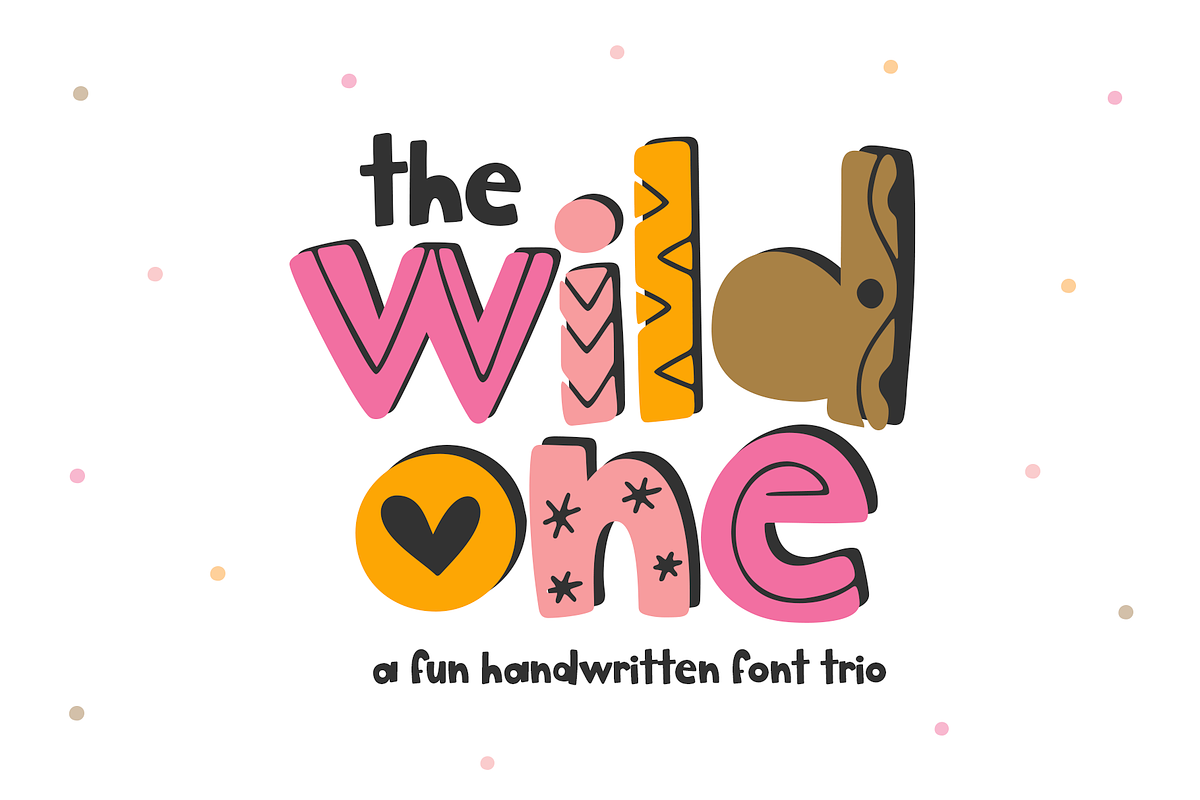
The Wild One A Cute Font Trio Free Download is a charming and playful font collection featuring three unique styles, each designed to bring personality and fun to your designs. Whether you're looking for bold, whimsical lettering or a more elegant script, this font trio offers versatile options for logos, branding, posters, greeting cards, and social media graphics.
Whether you're crafting a playful brand identity, creating joyful invitations, or designing eye-catching content, The Wild One adds an adorable and unique touch to your typography. It’s the perfect choice for designers who love a cute, fun aesthetic.